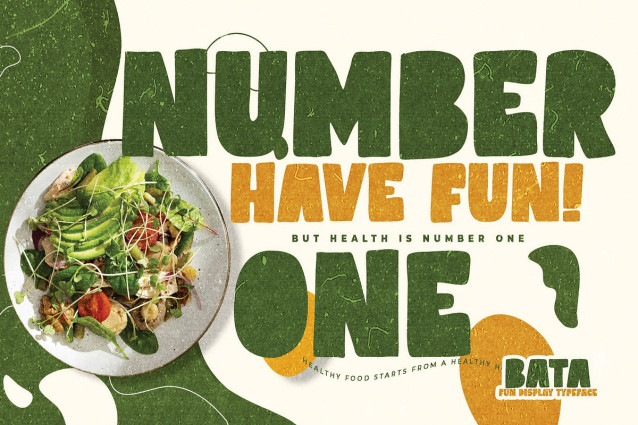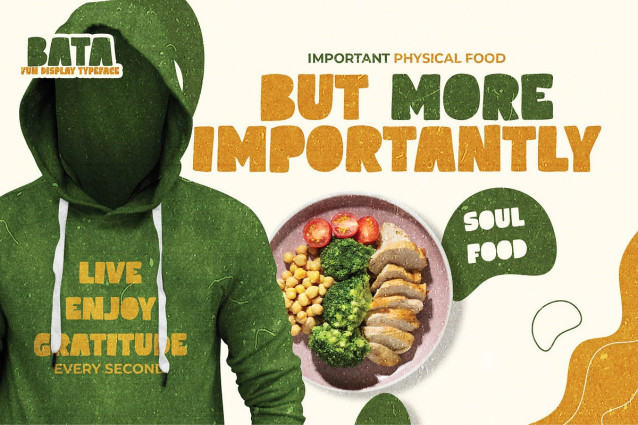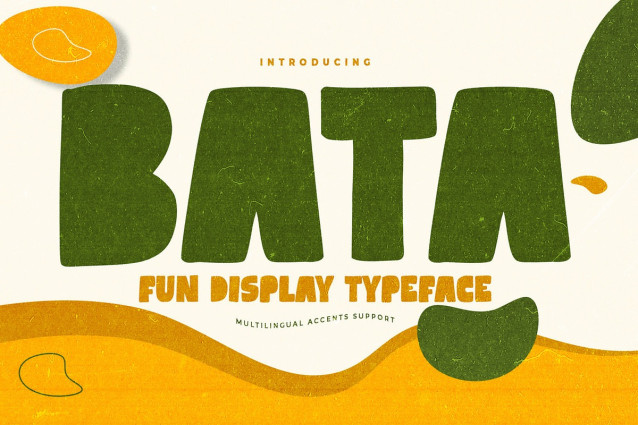
Bata Font
Bata Font is a playful and bold display typeface designed to bring joy, warmth, and a friendly character to your creative projects. With its chunky shapes, soft curves, and lively personality, BATA delivers a fun and approachable look—perfect for designs that aim to feel cheerful, youthful, and full of charm.